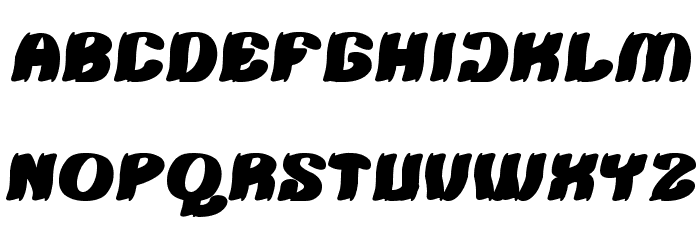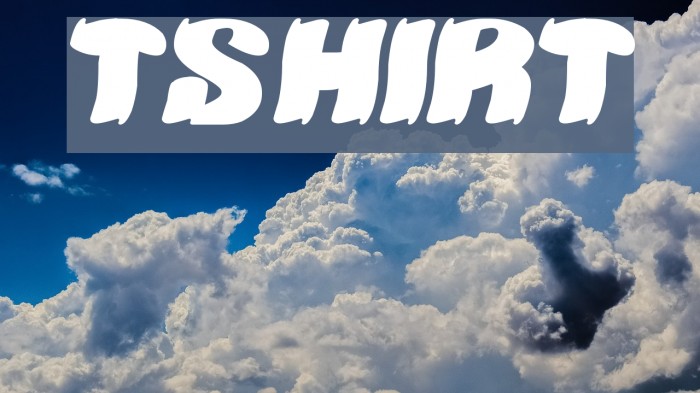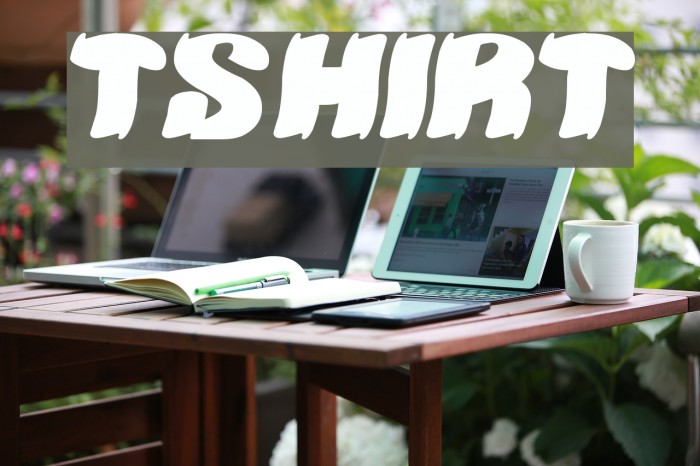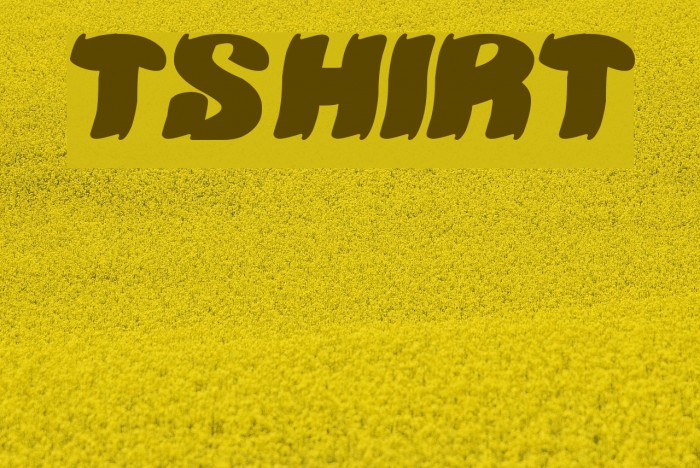
TSHIRT Font
This font features bold, rounded characters with a playful and dynamic style. The letters have a distinct, heavy appearance with thick strokes and minimal contrast, giving them a strong presence. The overall design is reminiscent of retro or vintage styles, with a touch of whimsy that makes it suitable for eye-catching designs. The characters are closely spaced, enhancing the boldness and impact of the text. This font is ideal for projects that require a fun and engaging look, such as posters, logos, or merchandise designs.
A bold, rounded font with a playful, retro style.
- Proposed Projects: Ideal for posters, logos, merchandise designs, and any project needing a bold, playful aesthetic.
- Character Spacing: Tight
- Overall Style: Vintage, Playful